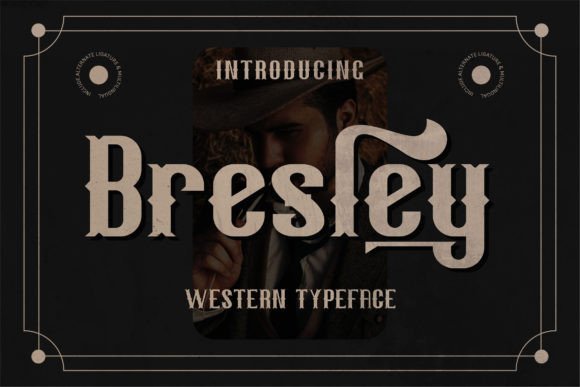
The Wild West of Typography: Discovering the Bresley Font
I’ll never forget the design project that led me to the Bresley font. I was working on a branding campaign for a western-themed restaurant, and I was struggling to find the perfect font to capture the essence of the Wild West. The client wanted something bold, rugged, and reminiscent of old saloon signs. After hours of scouring font libraries and testing different options, I stumbled upon Bresley – and it was love at first sight! 💕
With its split serifs and bold, adventurous spirit, Bresley instantly transported me to the dusty trails and lawless lands of the American frontier. It was as if the font had been designed specifically for my project. In this article, I’ll share my experience with Bresley, its features, and how to make the most of it in your designs.
An Honest Review of Bresley
- ✨ Unique split serifs: The distinctive split serifs give Bresley a rugged, rough-riding feel that’s perfect for western-themed designs.
- ✅ Bold and attention-grabbing: Bresley is a font that demands attention. Its bold weight makes it perfect for headlines, titles, and signage.
- 🌵 Wild West charm: Bresley embodies the spirit of the American frontier, evoking images of dusty trails, cowboys, and old saloon signs.
While Bresley is an amazing font, it’s not without its quirks. Here are a few things to keep in mind:
- ⚠️ Limited use cases: Bresley is a highly specialized font that’s best suited for western-themed designs. It may not be the best choice for more formal or traditional projects.
- 🤔 Glyph limitations: While Bresley has a range of glyphs and OpenType features, it may not have every character or symbol you need. Be sure to test it thoroughly before committing to a project.
A Practical Guide to Using Bresley
The Backstory of Bresley
Bresley was designed by a team of typographers who wanted to capture the essence of the Wild West. Inspired by old saloon signs, wanted posters, and western literature, they created a font that’s bold, rugged, and adventurous. Whether you’re a designer, crafter, or creative hobbyist, Bresley is the perfect font for adding a touch of frontier flair to your projects.
Q: What is the Bresley font best suited for?
A: Bresley is best suited for western-themed designs, such as branding, signage, and advertising.
Q: Is Bresley a difficult font to read?
A: While Bresley is a bold font, it’s still relatively easy to read. However, it may not be the best choice for body text or long-form content.